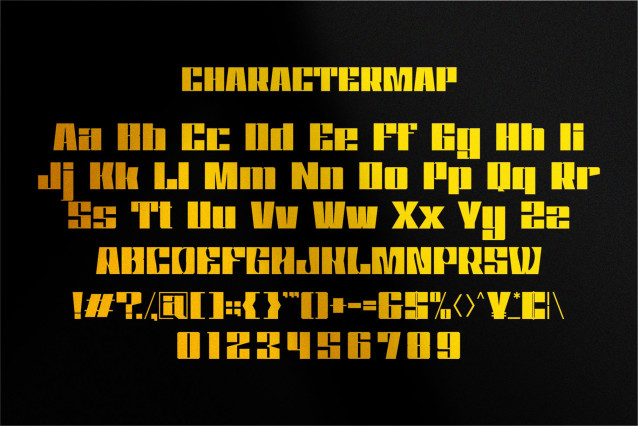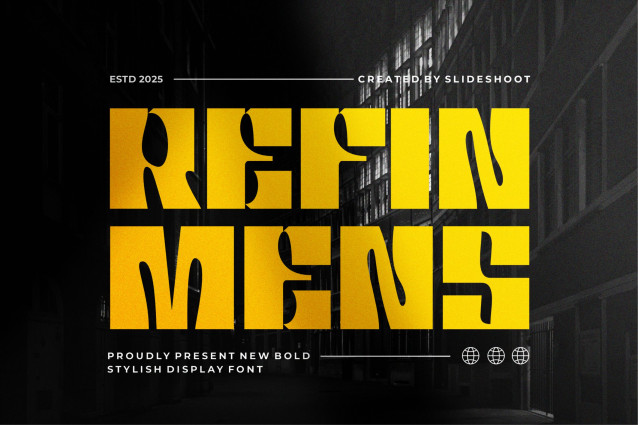
Refin Mens Font
Refin Mens is a bold sans serif modern font, trendy, bouncy and cute display font. It has a unique character with wood theme. It is perfect to be combined with invitation card designs, company logos, movie titles, movie names, business cards, book titles, brand names and various other designs.
Designer Name: SlideShoot